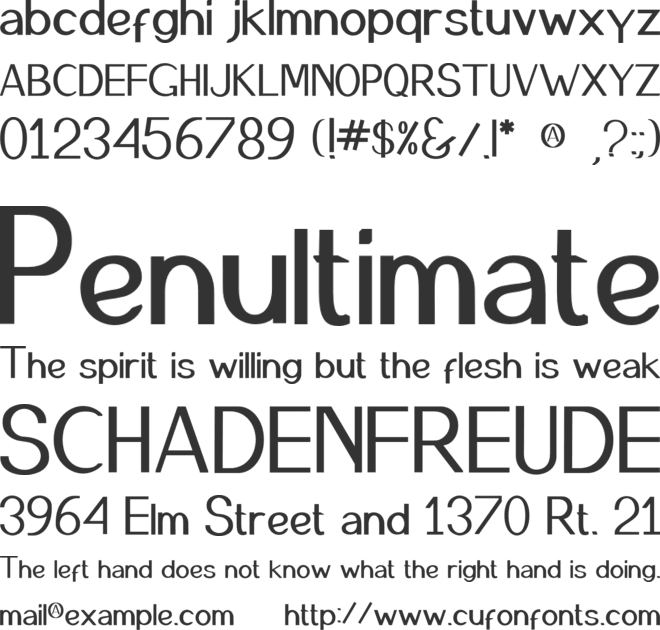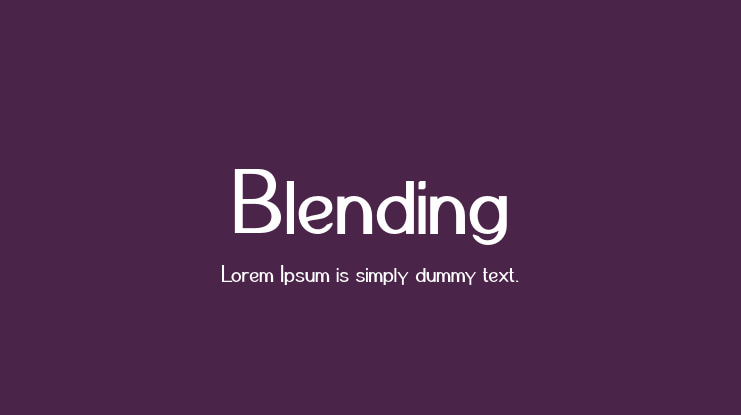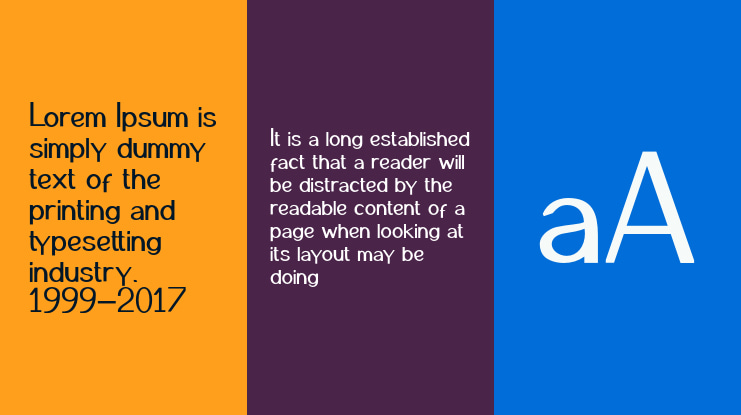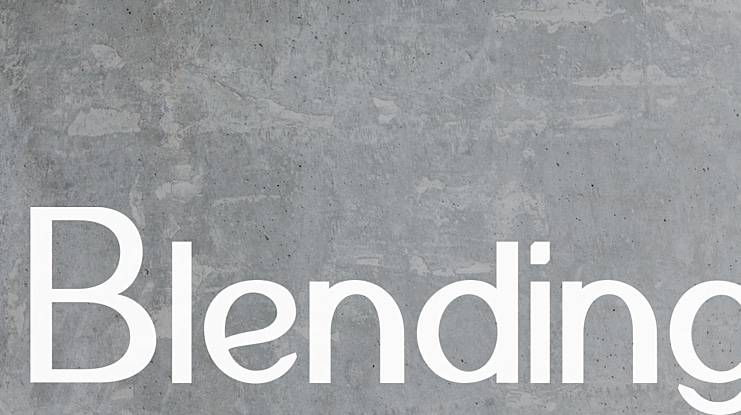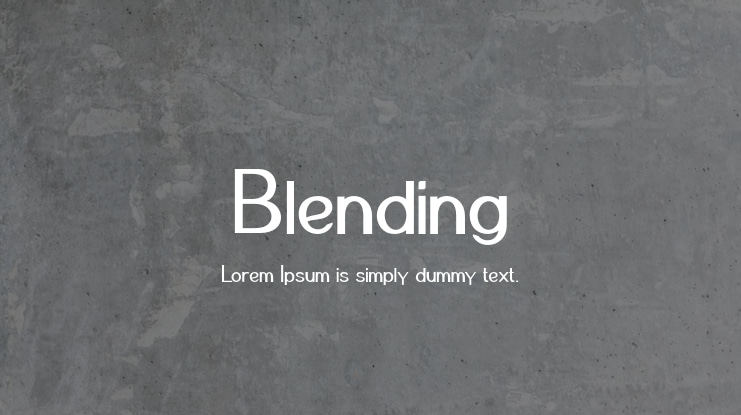
Blending Font
Blending Simple Sans is a sans-serif font that embodies simplicity and confidence. Regardless of the subject matter, this font is a valuable addition to your font collection, as it has the power to enhance any design.